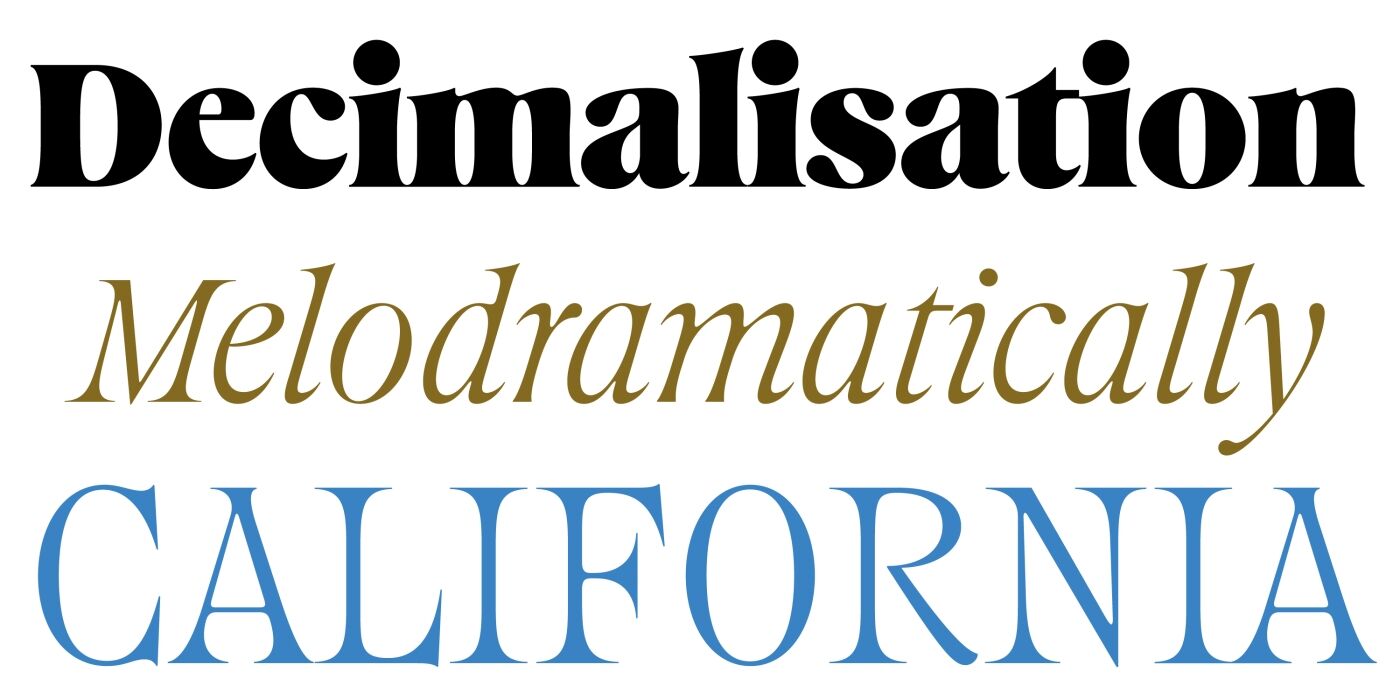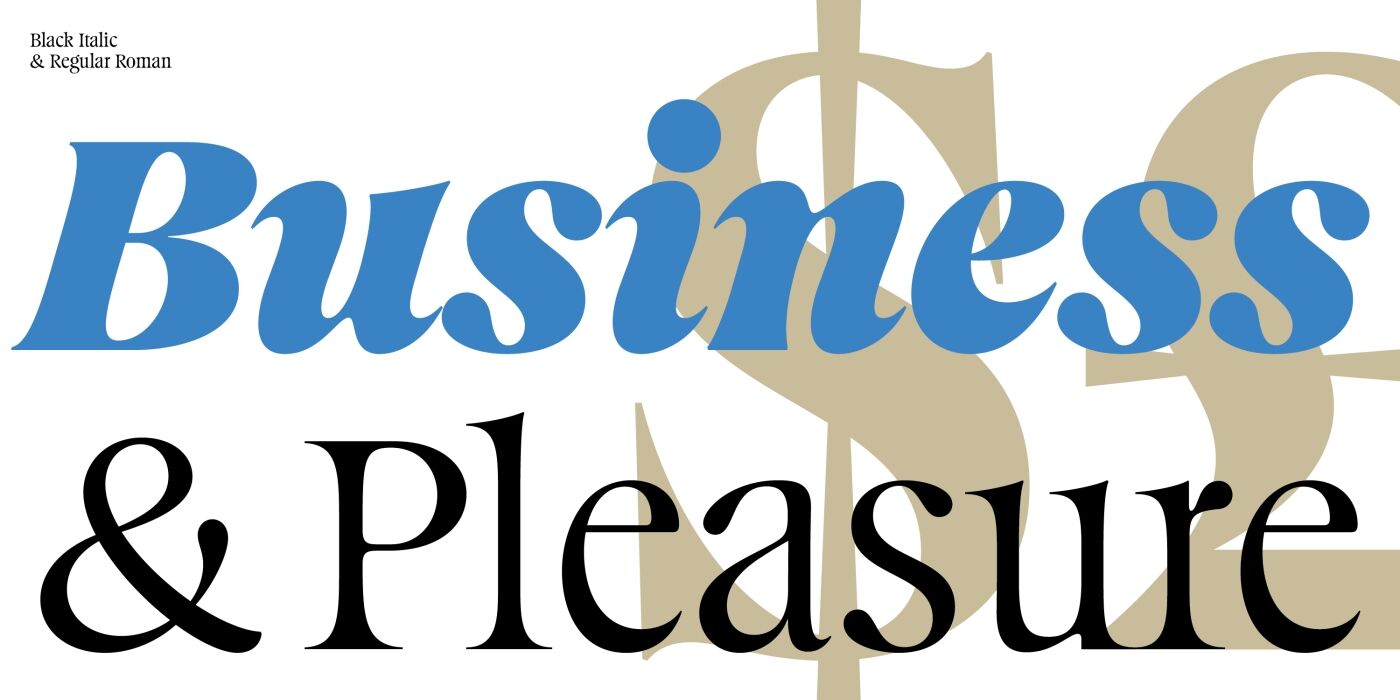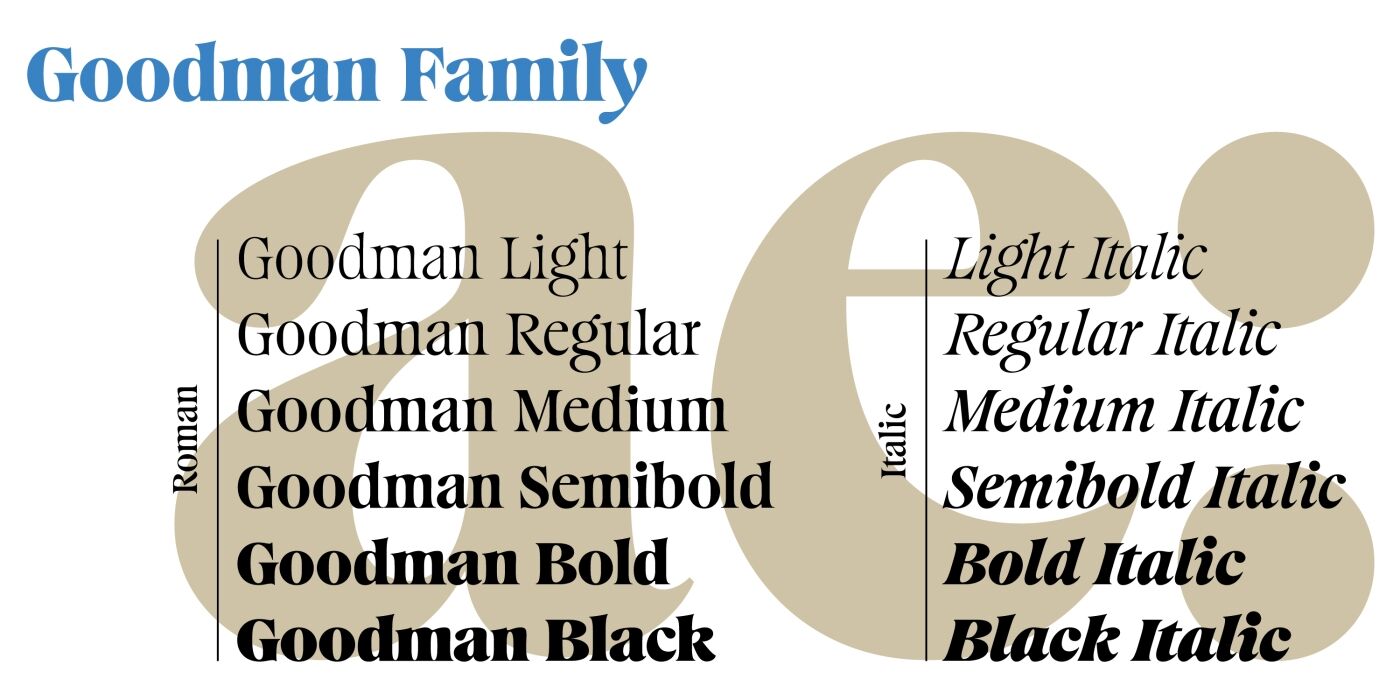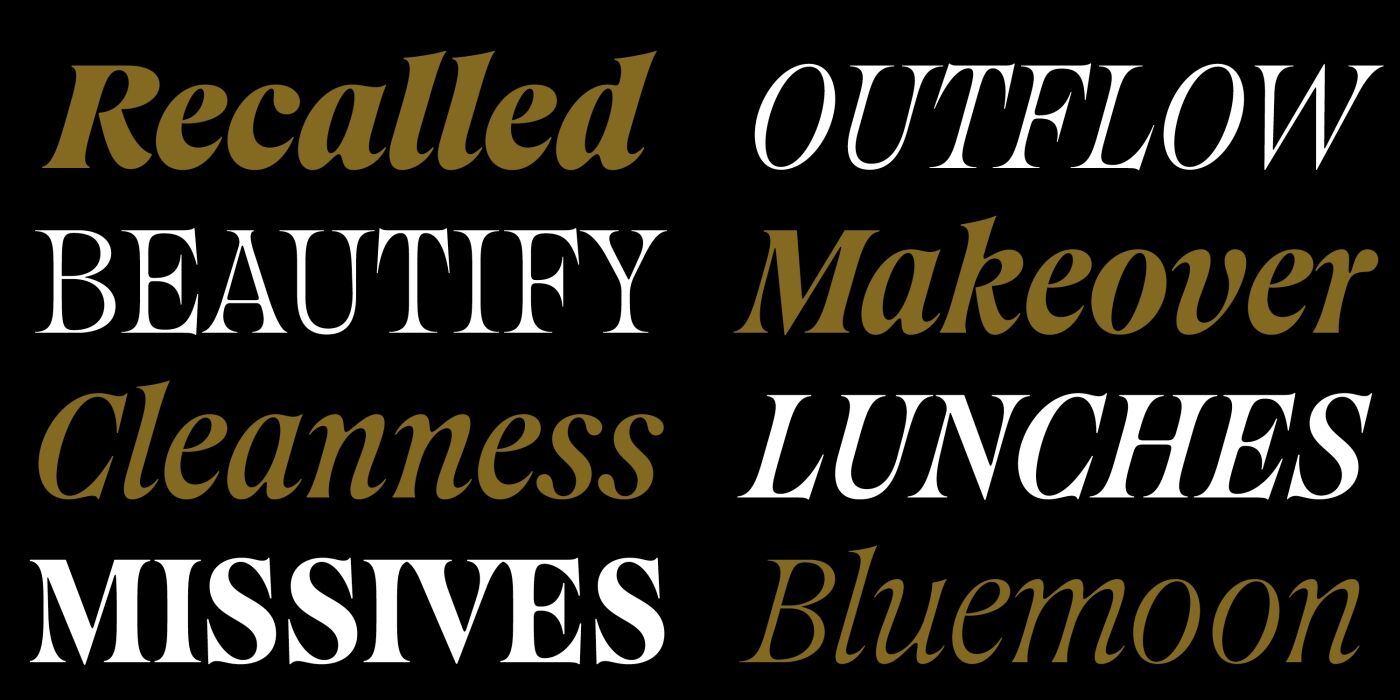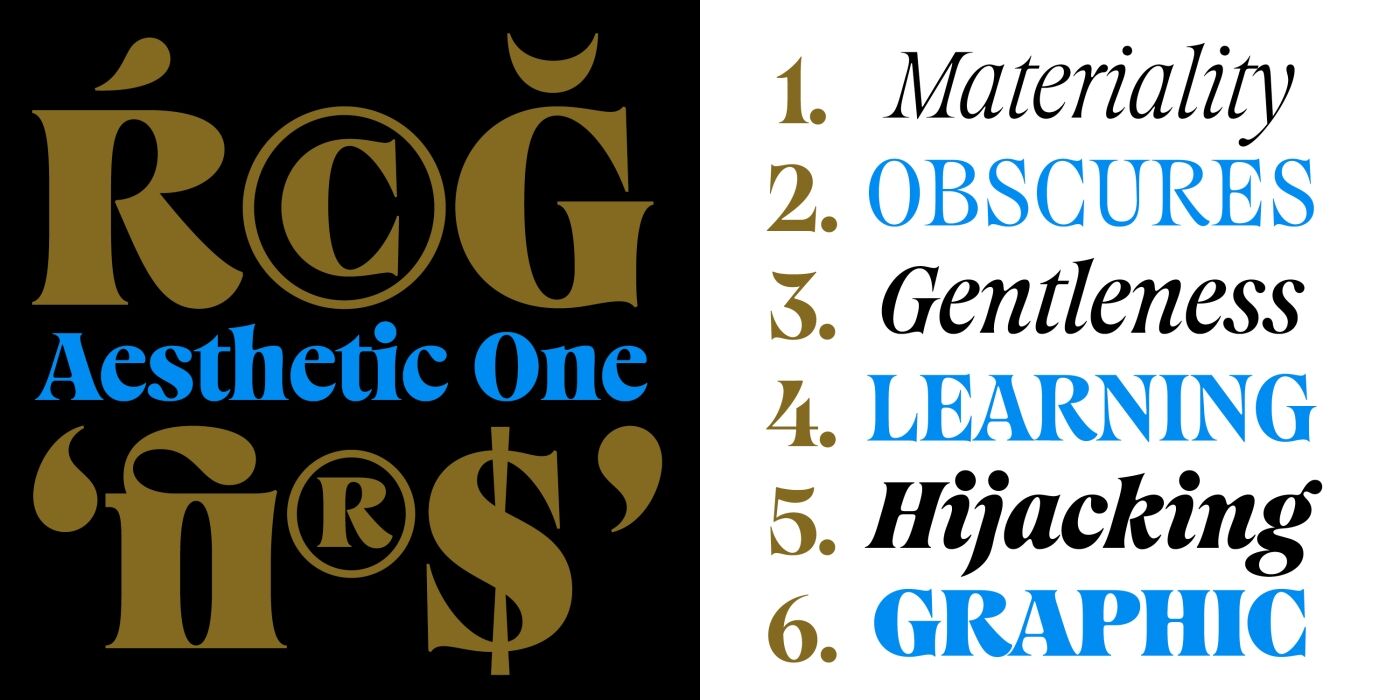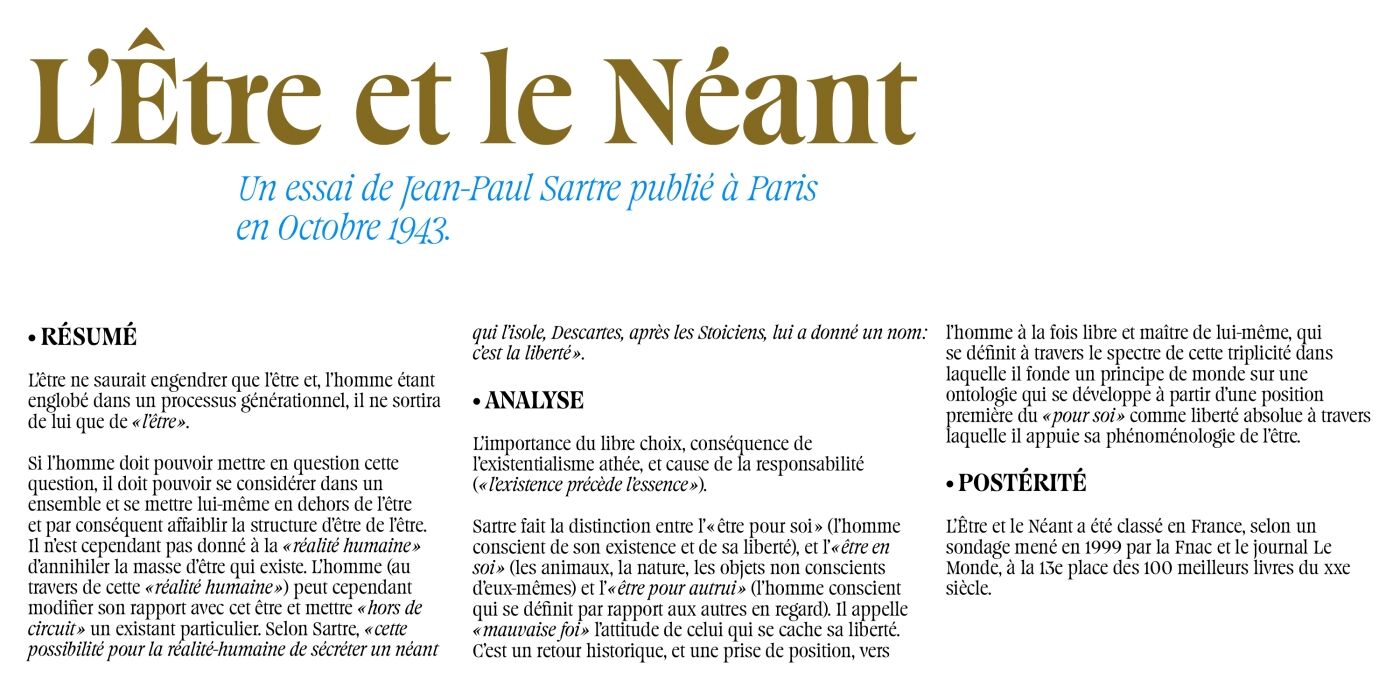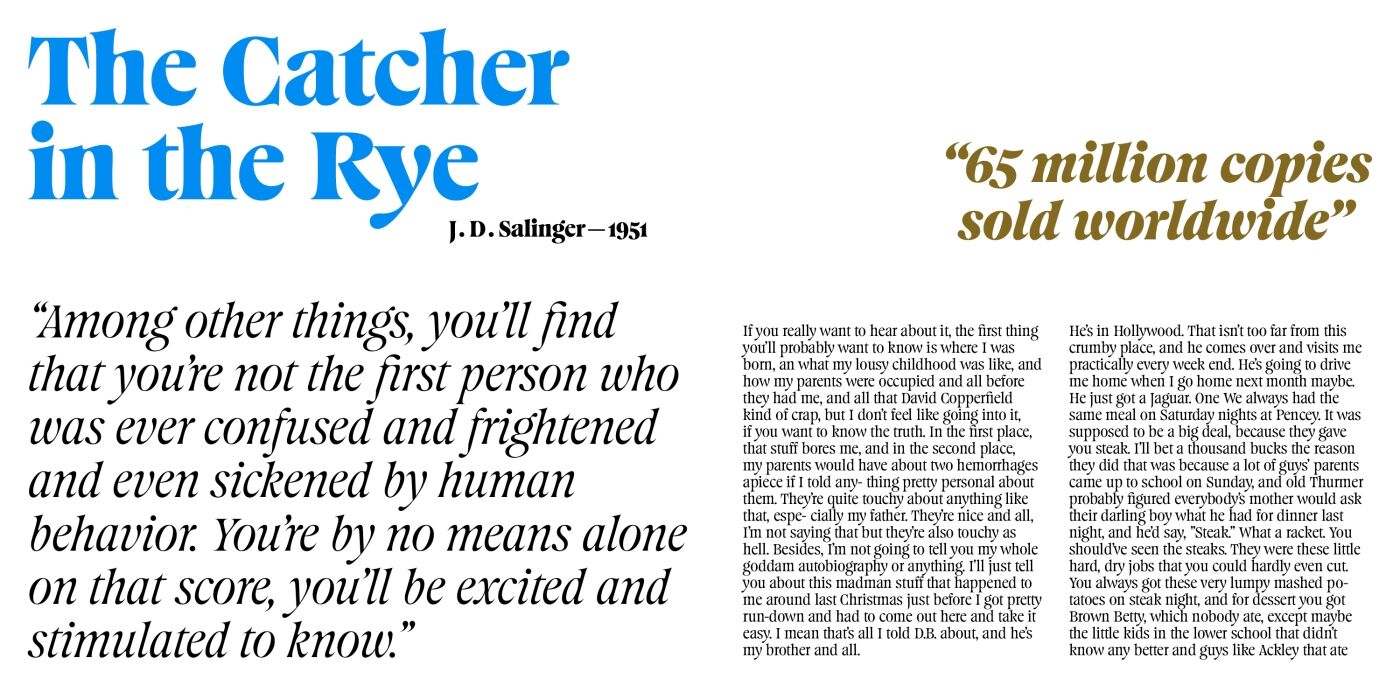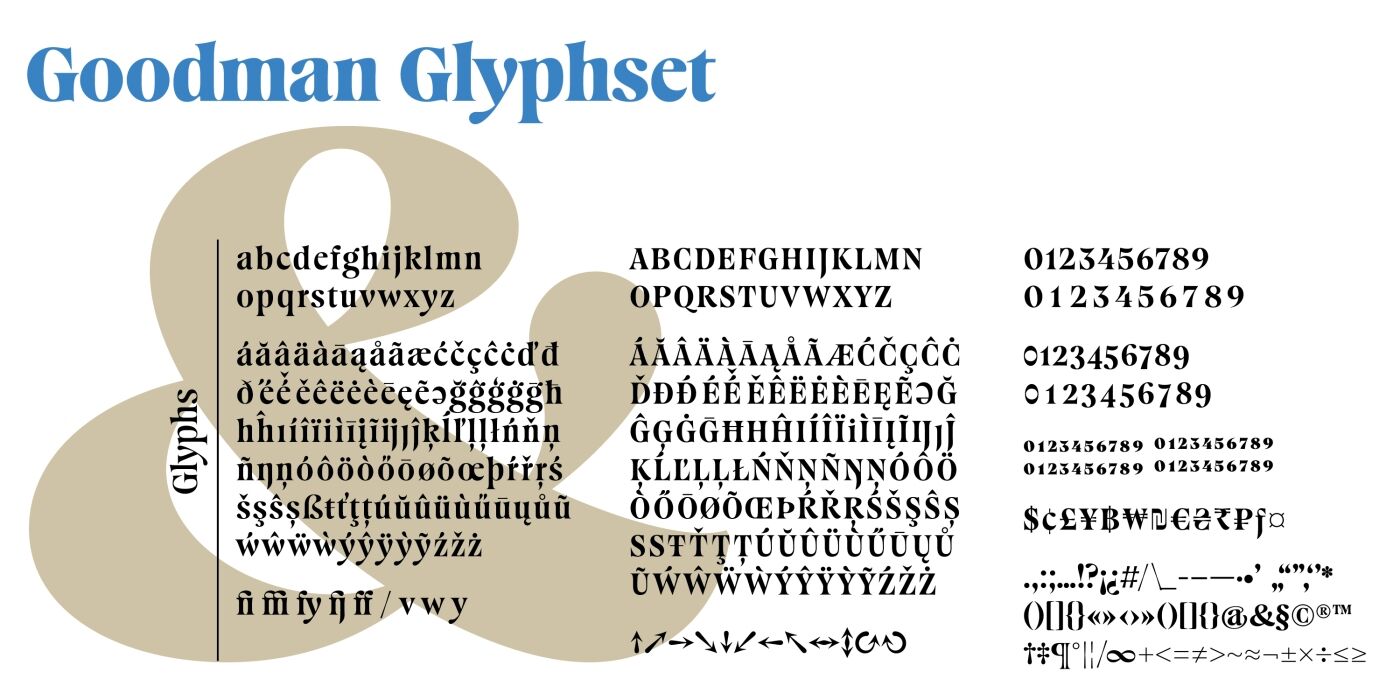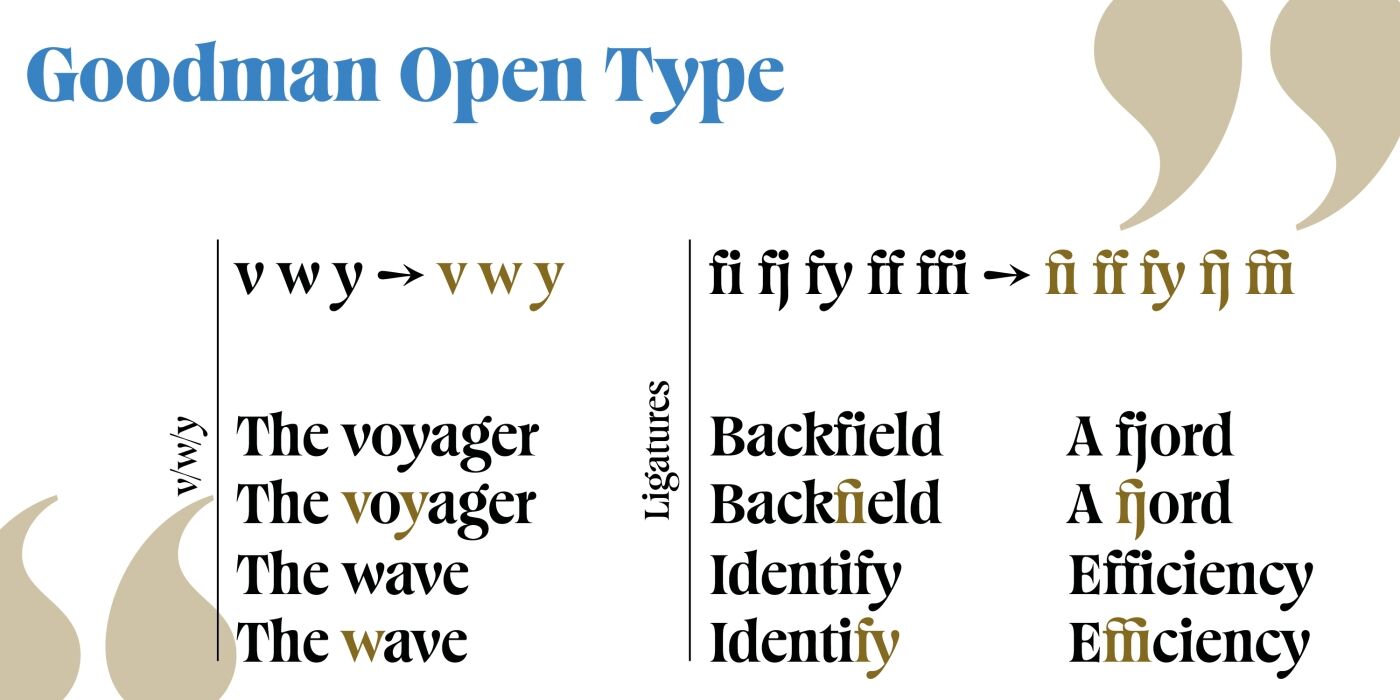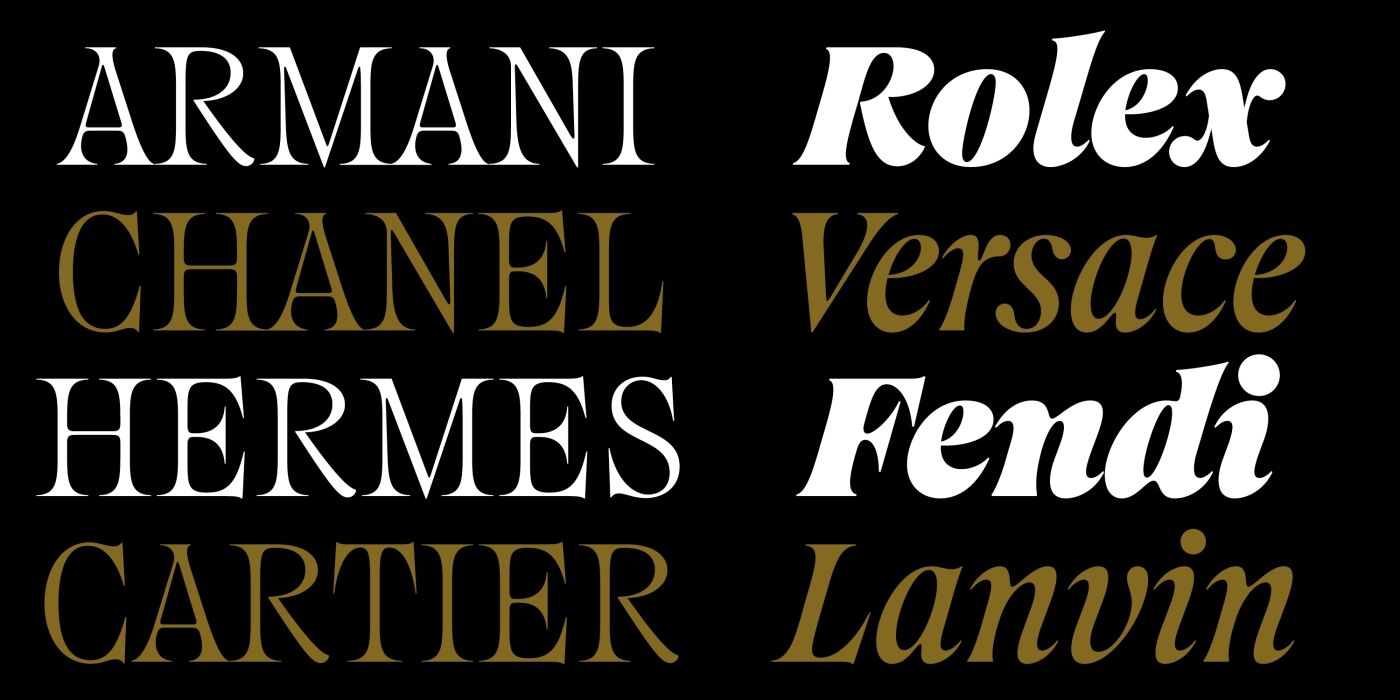
Goodman Typeface
Goodman, distributed at The Designers Foundry is a vibrant revival of the iconic Gesh Ortega Roman 275 by Gerhard Schwekendiek. Designed by Ethan Nakache over the last four-plus years; it breathes new life into this distinguished typeface while honouring its rich heritage and timeless appeal.
Goodman is driven by a deep commitment to preserving the essence of the original design and selectively infusing it with contemporary versatility for modern typesetting. The design of Goodman Italics has been further refined to accentuate their graceful nature.
At the heart of Goodman is its captivating emphasis on rhythm. A defining characteristic is the interconnected serifs of its stems, which connect to create a distinctive ellipse reminiscent of the elegant curve in the letter “n.” This subtle yet deliberate design choice adds sophistication to each character, lending a unique visual identity to the typeface.